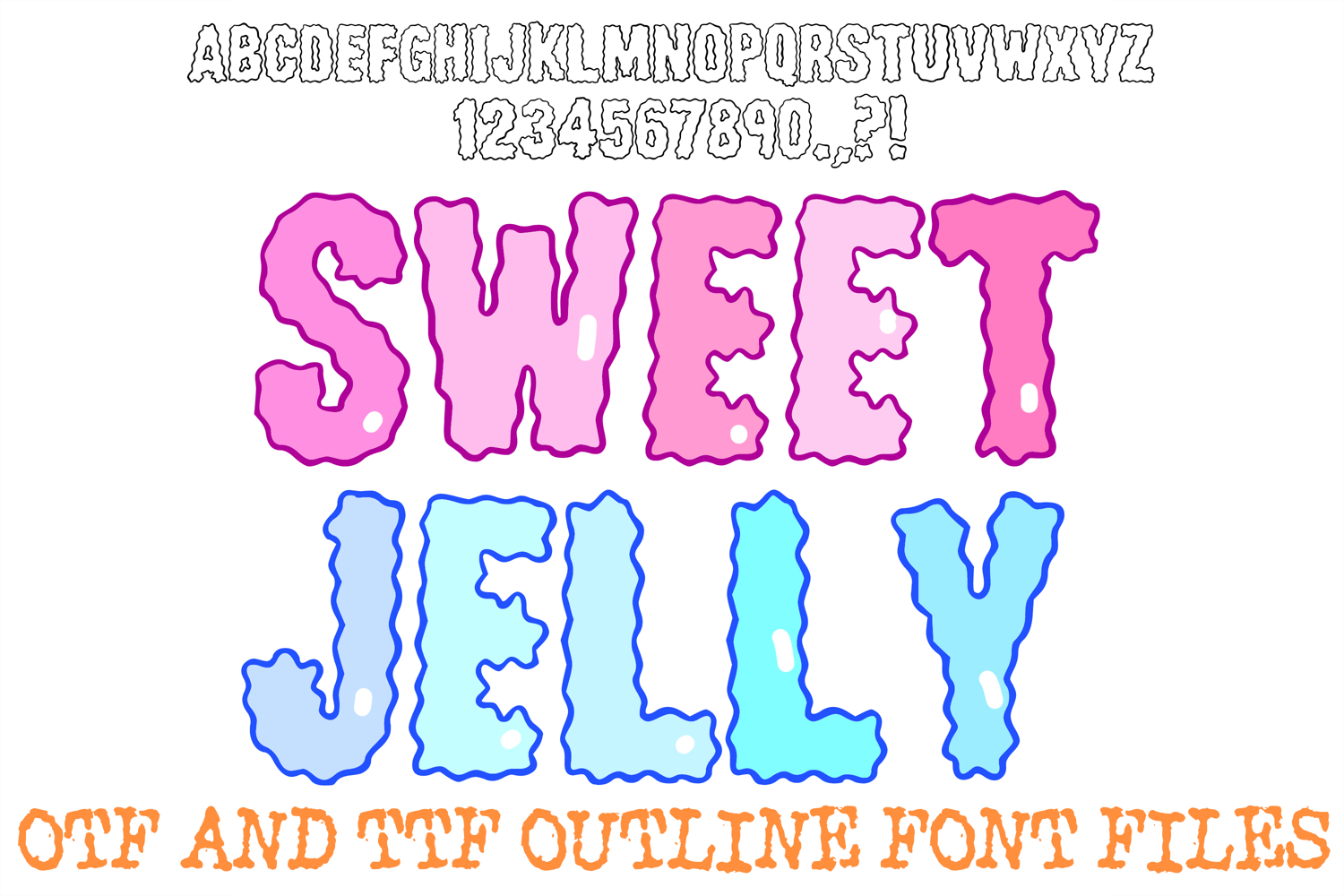
Sweet Jelly ABC Font Alphabet OTF TTF Wobbly Illustration
Bring a squishy, playful bounce to your creative layouts with Sweet Jelly, an installable display font featuring bubbly, wobbly letterforms styled like soft candy gel and liquid jelly. With its wiggly edges and rounded silhouette, this playful typeface adds a delightful, sugary pop to food packaging, children's crafts, and party decor.
Ideal For:
Kids & Party Decor: Birthday banners, party invitations, cake toppers, and cheerful room signage.
Food & Bakery Branding: Sweet shop packaging, candy labels, ice cream menus, and dessert stickers.
Apparel & Merchandise: Cute kids' t-shirts, tote bags, summer hoodies, and playful accessories.
Crafts & Vinyl Projects: Sticker sheets, craft machine cutouts, custom decals, and digital scrapbooking layouts.